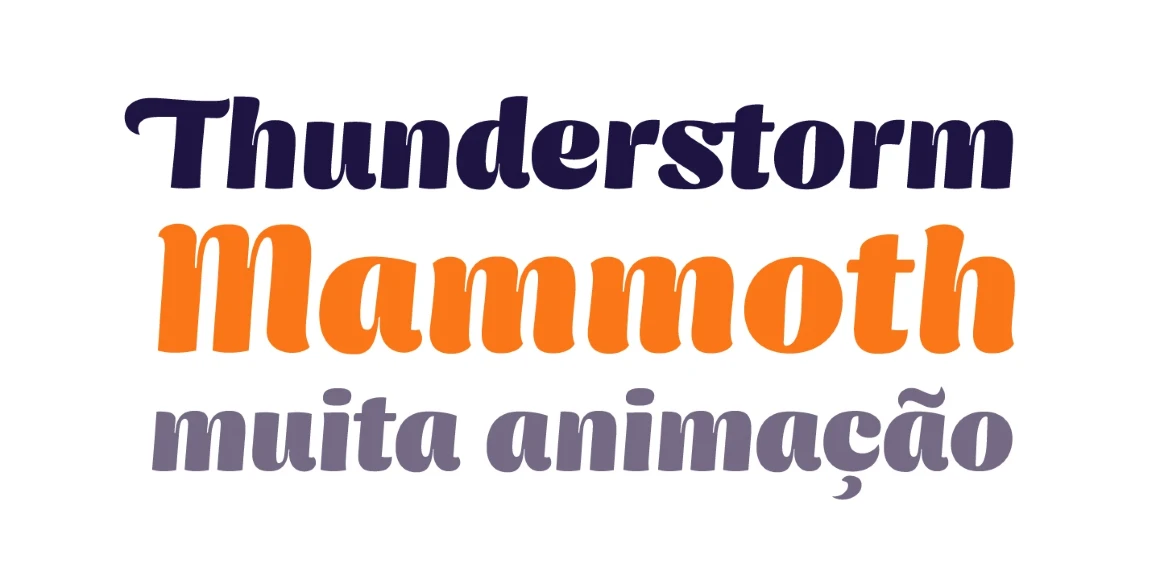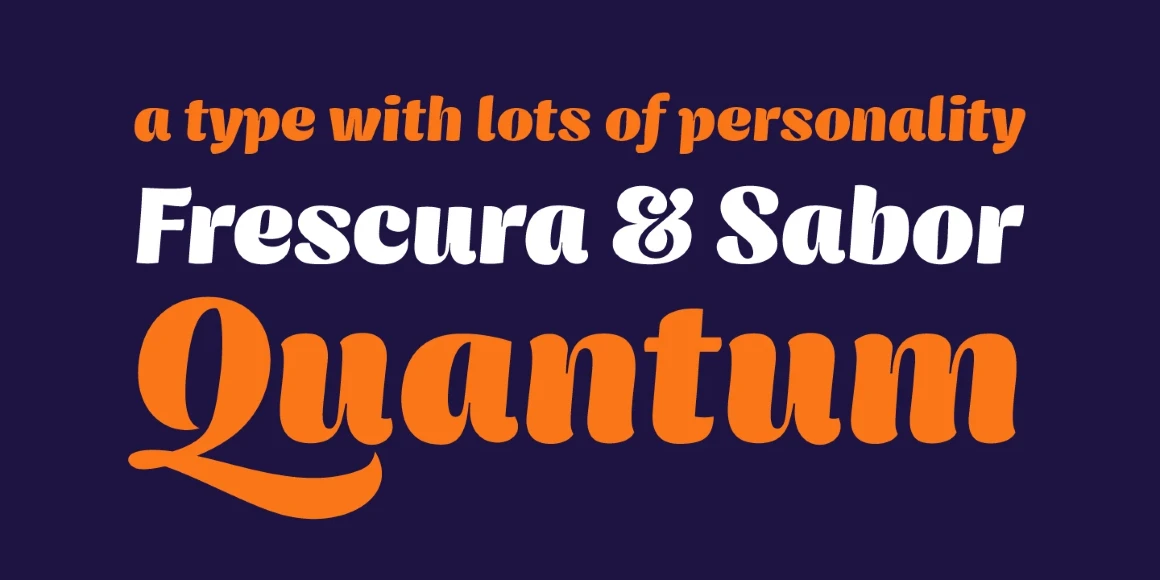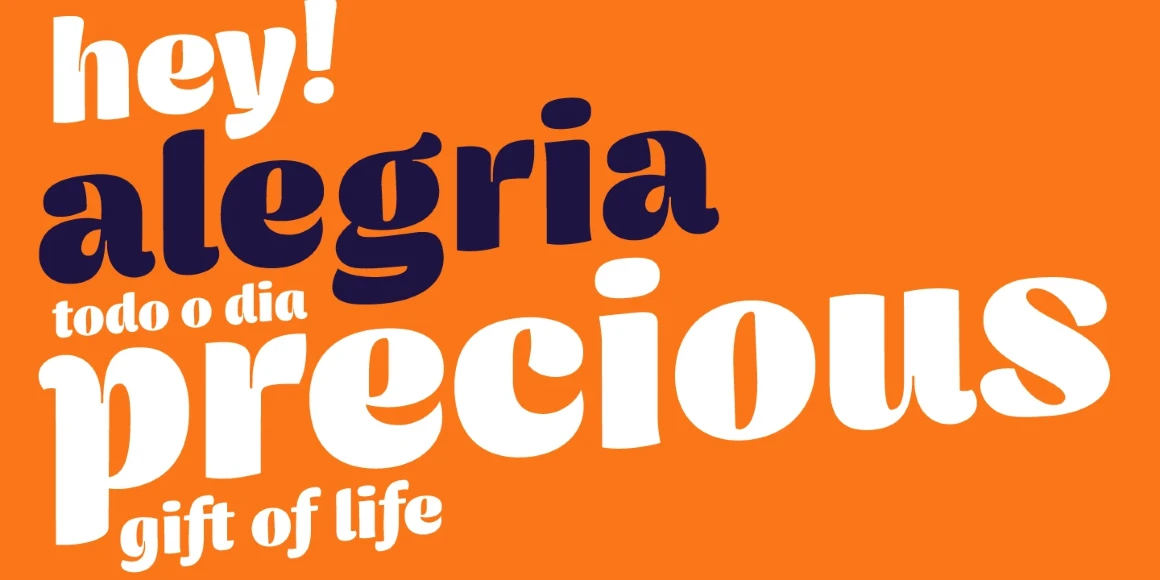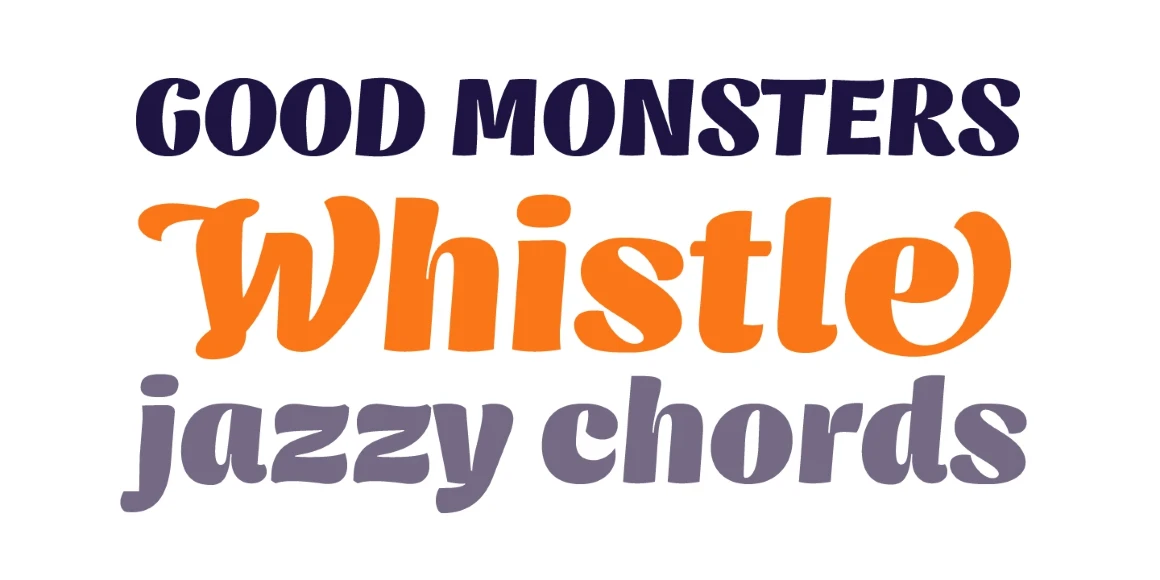
Genica
By Natanael Gama
Genica One
Genica is a display font with details of a friendly script and a soft sans. Because of this unique mixture, it is full of personality. Natanael had this design in his type drawer for a long time. It was a relaxing exercise, an experiment with no brief. Just wild play with the bezier tool. Is it smiling? Laughing? Use it to boost relaxation and enjoyment for a theatrical release, a family board game, or market fresh produce. Your work is sure to overflow with character if you choose Genica.